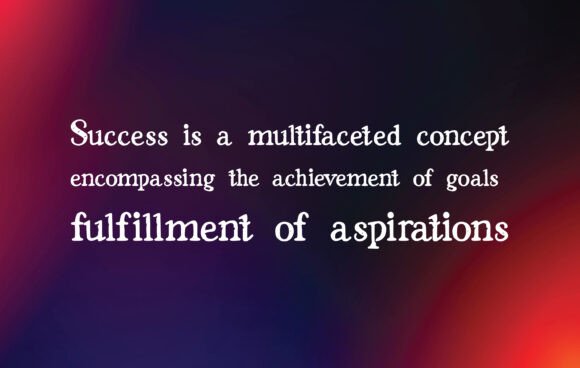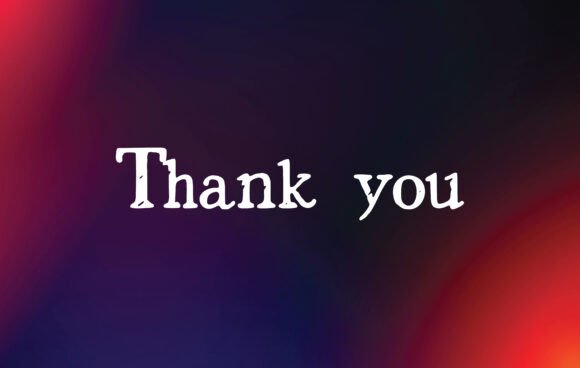
Alara Font: Elevate Your Creative Projects with this Stunning Handwritten Font
Are you a designer, craftsperson, or creative enthusiast looking for a font that can take your projects to the next level? Look no further than Alara Font, a lovely and beautiful handwritten font that is sure to impress. With its unique and elegant style, Alara Font has the potential to elevate your creative ideas to new heights, making it the perfect choice for a wide range of design applications.
The Perfect Choice for Eye-Catching Logos, Branding, and Quotes
Alara Font is specifically designed to help you create eye-catching logos, branding, and quotes that will leave a lasting impression on your audience. Its beautiful, handwritten style gives your text a personal and distinctive touch, setting it apart from more traditional fonts. Whether you’re looking to create a stunning logo for your business, craft a compelling brand identity, or simply add some personality to your quotes and phrases, Alara Font is the perfect choice.
Key Features of Alara Font
So, what makes Alara Font so special? Here are just a few of its key features:
- Unique and Elegant Style: Alara Font boasts a distinctive, handwritten style that is both elegant and eye-catching.
- Highly Versatile: This font is perfect for a wide range of design applications, from logos and branding to quotes and phrases.
- Easy to Read: Despite its elegant style, Alara Font is highly legible, making it perfect for use in both digital and print applications.
- Extensive Language Support: Alara Font supports a wide range of languages, making it a great choice for designers and crafters working with international clients or audiences.
How to Use Alara Font in Your Design Projects
Using Alara Font in your design projects is easy. Here are a few tips to get you started:
- Pair it with Other Fonts: Alara Font pairs beautifully with other fonts, making it easy to create stunning contrast and visual interest in your designs.
- Experiment with Colors and Textures: The elegant style of Alara Font makes it a great choice for use with a wide range of colors and textures.
- Use it for Headings and Titles: Alara Font is perfect for use in headings and titles, where its elegant style can really make your text stand out.
Why Designers and Crafters Love Alara Font
So, why do designers and crafters love Alara Font? Here are just a few reasons:
- Unique Style: Alara Font offers a unique and distinctive style that sets it apart from more traditional fonts.
- Ease of Use: This font is highly legible and easy to use, making it perfect for designers and crafters of all skill levels.
- Highly Versatile: Alara Font is perfect for a wide range of design applications, from logos and branding to quotes and phrases.
In conclusion, Alara Font is a stunning handwritten font that is sure to elevate your creative projects to new heights. With its unique and elegant style, highly legible design, and extensive language support, this font is perfect for designers, crafters, and creative enthusiasts of all skill levels. Whether you’re looking to create eye-catching logos, branding, and quotes, or simply add some personality to your text, Alara Font is the perfect choice.